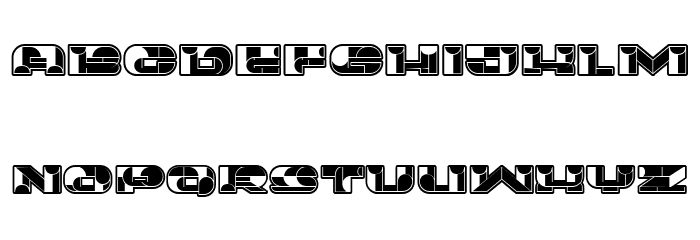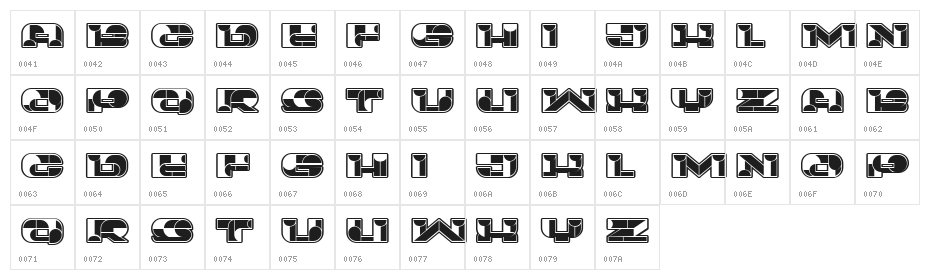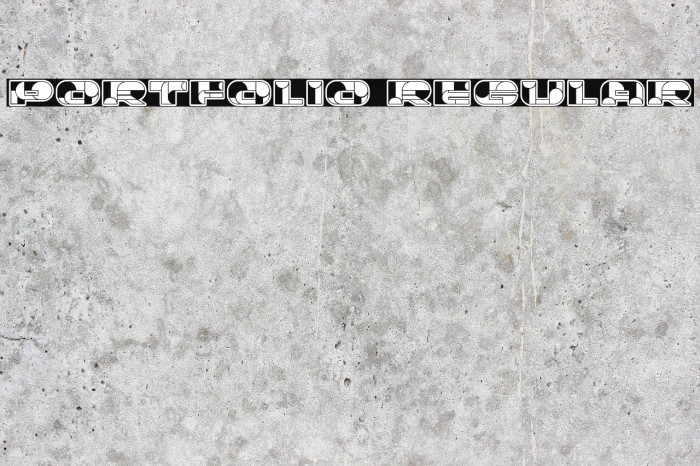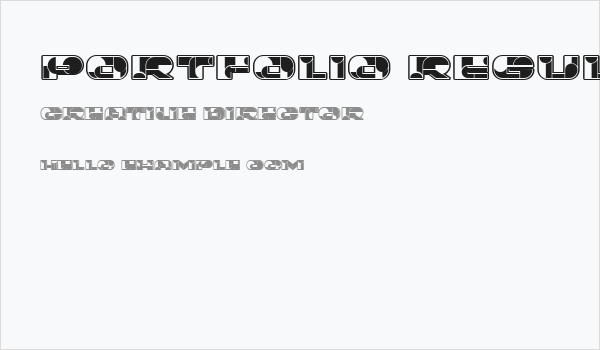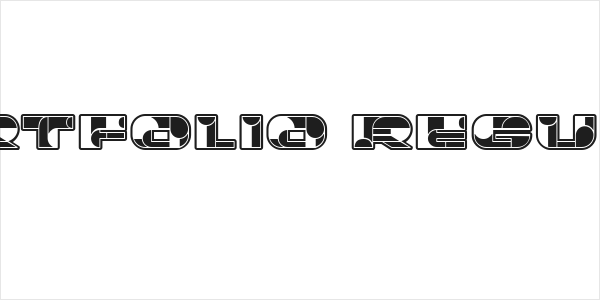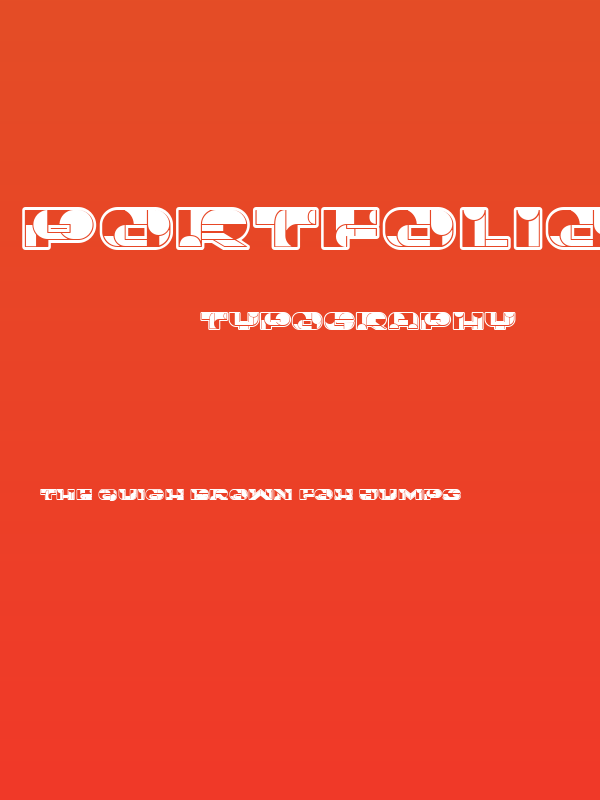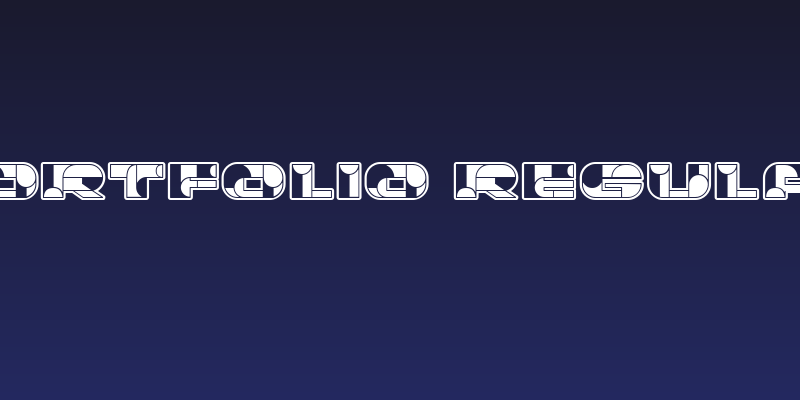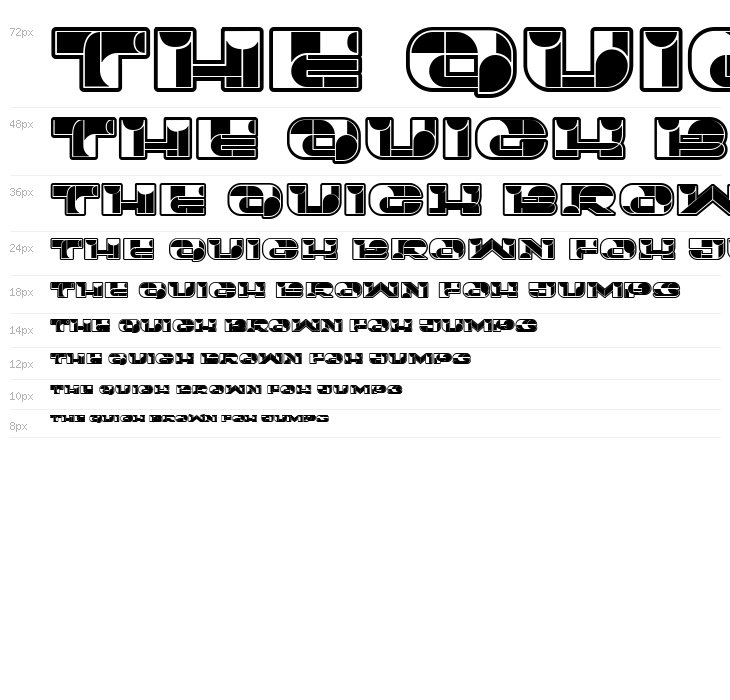
Portfolio Regular Font
Portfolio Regular Description
This font features a bold and striking design with a modern, geometric aesthetic. The characters are constructed with thick, block-like shapes that incorporate negative space to create a unique visual effect. The uppercase letters are particularly eye-catching, with their solid forms and sharp angles. The font's style is reminiscent of futuristic or sci-fi themes, making it ideal for projects that require a strong and impactful visual presence. Its distinct appearance ensures that it stands out in any design, whether used for headlines, posters, or branding materials.
| Proposed Projects | Ideal for sci-fi themed designs, posters, branding, and headlines. |